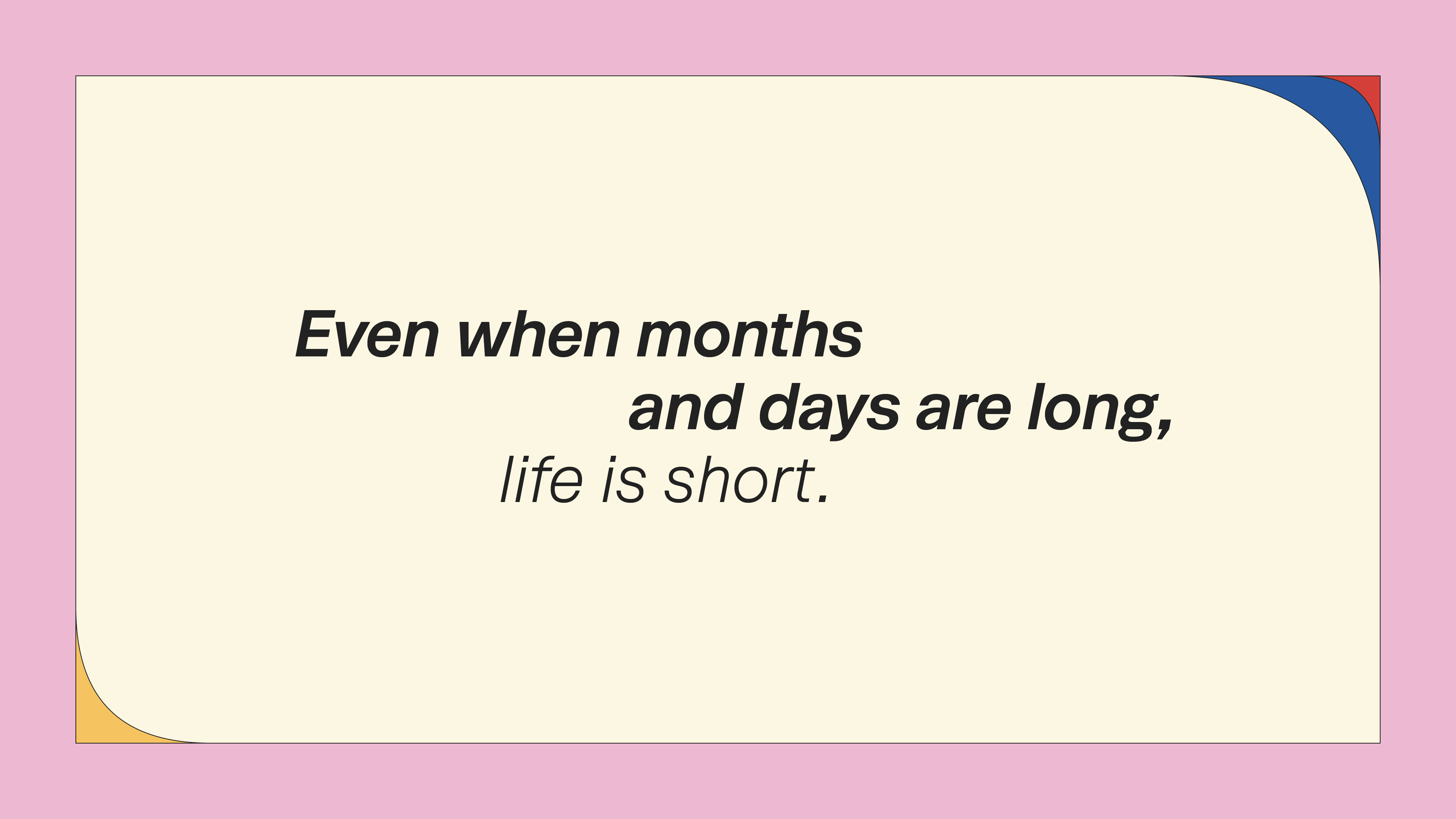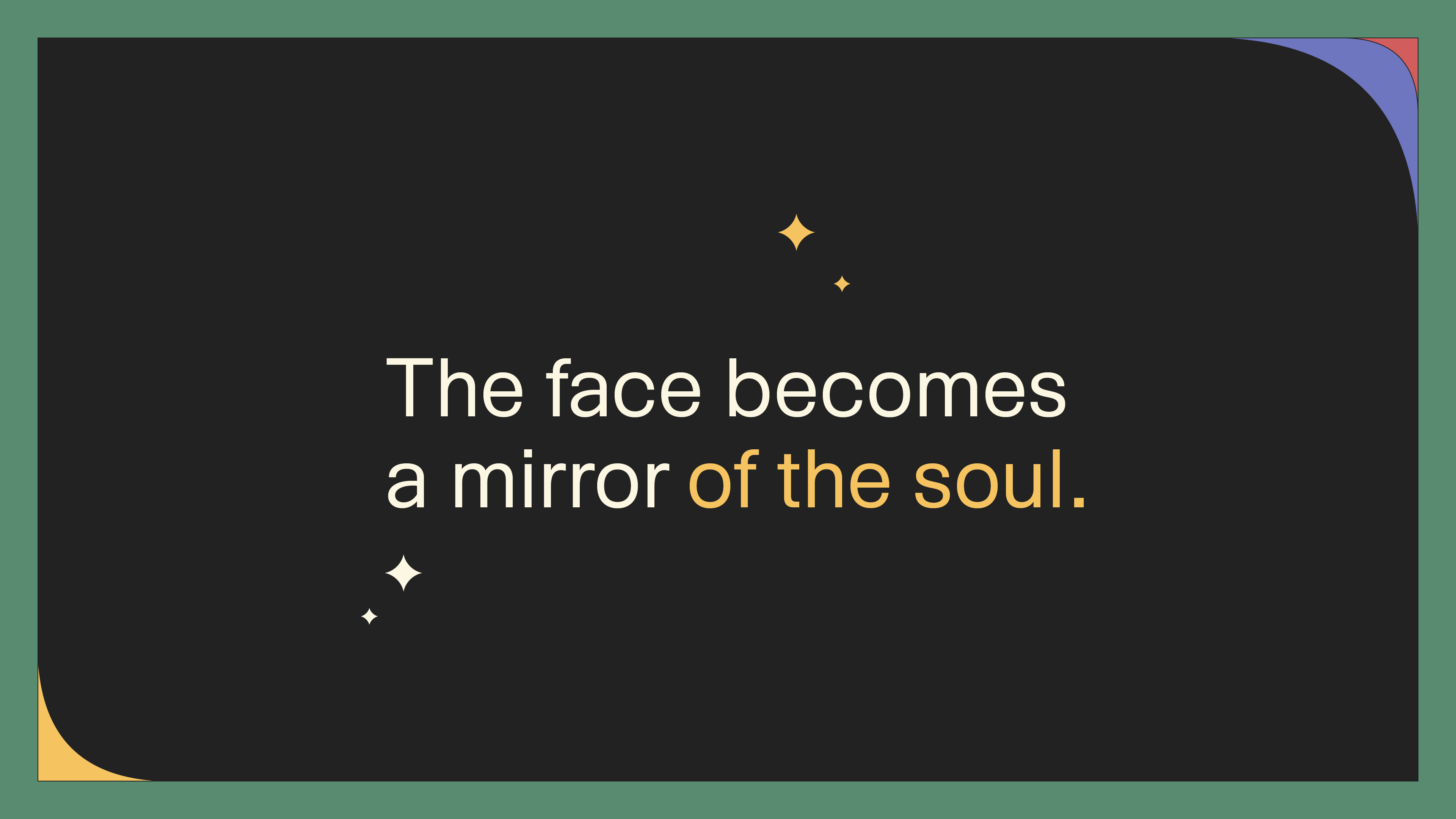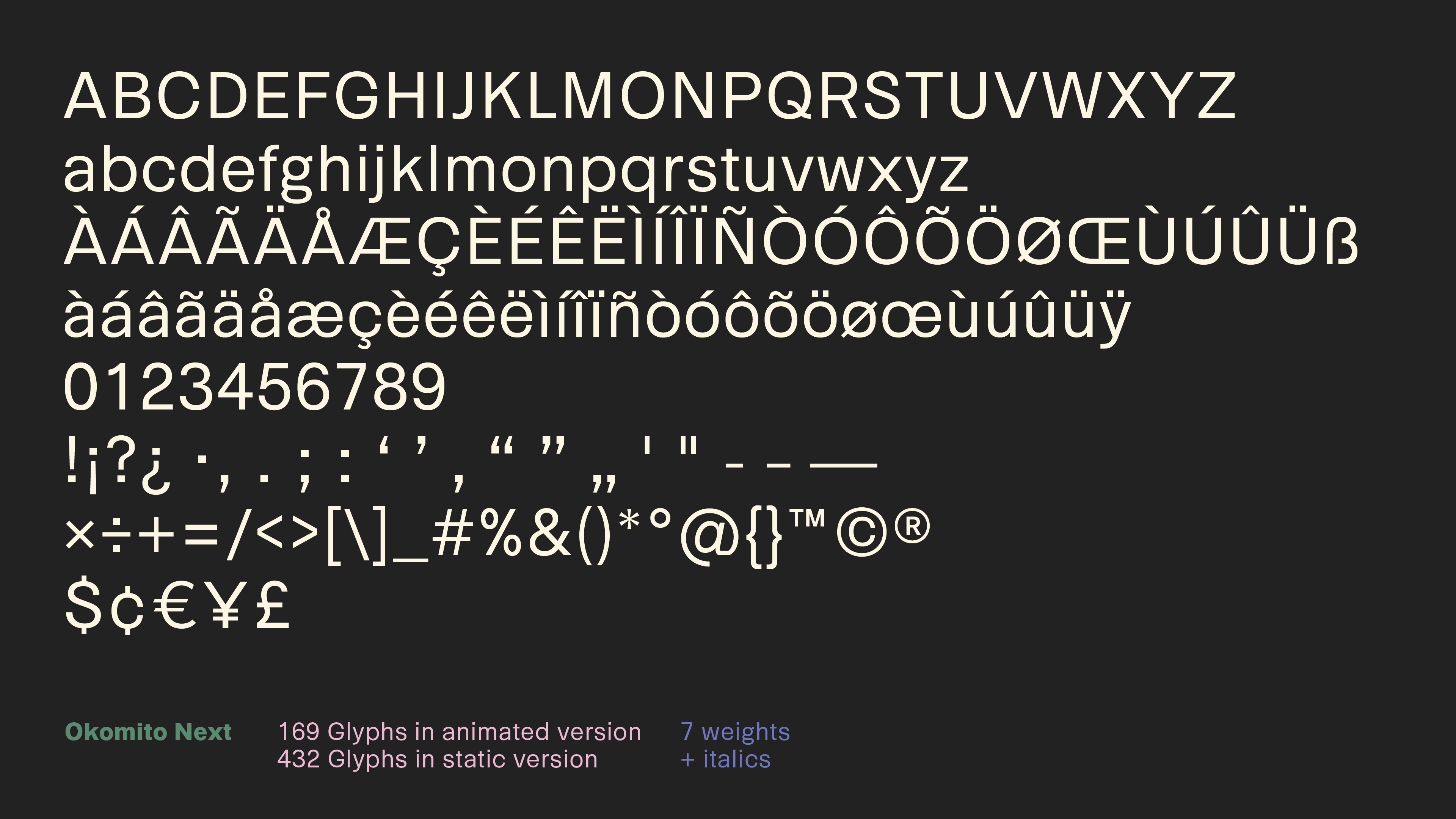
Okomito Next - Animated Typeface
Okomito Next is a sans serif inspired by the classic typefaces that were imbued with a sense of functionality, boldness and industrial strength.
The animated version aims to blend a quick, explosive expression with a soft and wavy feel. It includes the entire family of 14 weights and styles. Simply use the built-in dropdown to select your favorite weight.
Customizable Features
• 4 colors or gradients
• secondary animation - driver visibility
• secondary animation - bullet visibility
• secondary animation - bullet direction
• random seed
• mask distortion